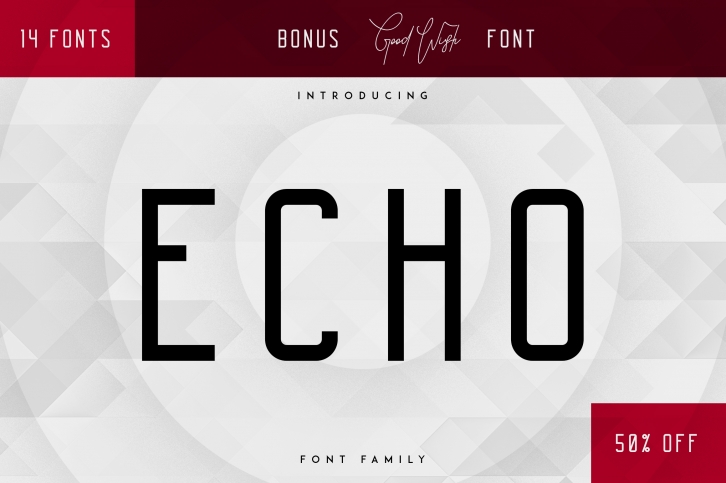
Echo 14 Family + Bonus is a great font that was designed by VPcreativeshop. Imagine the amount of combinations you can create using this font! The archive is 20.78 MB and it was released on June 20, 2018. Echo 14 Family + Bonus looks beautiful on wedding invitations, greeting cards, logos, posters, labels, t-shirt designs, logos, business cards and is perfect for use in ink or watercolor works, fashion, magazines, packaging and food menus, children's books and more!